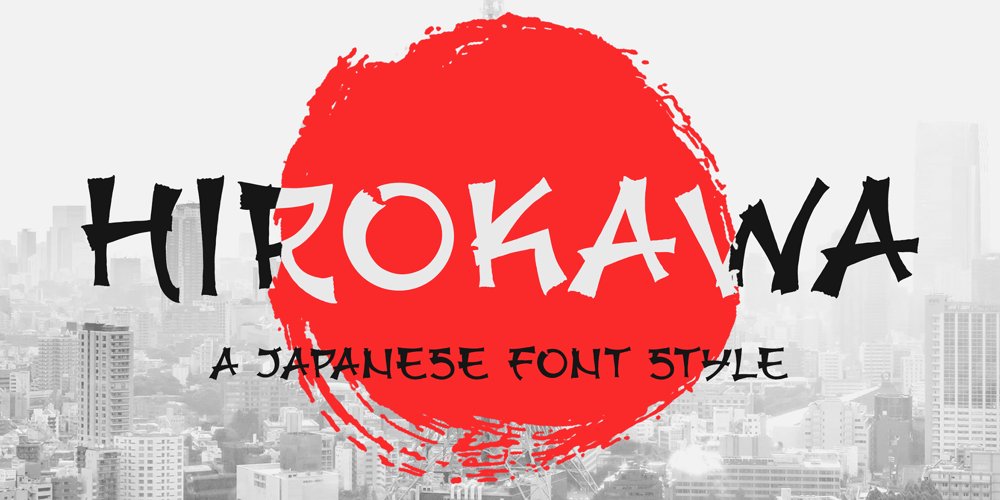
Hirokawa
Hirokawa font
Hirokawa Font Family was designed by Heri Imanudin and published by Krafted. Hirokawa contains 1 styles and family package options. Introducing Hirokawa – A Japanese FontKonnichiwa! Hirokawa is a handcrafted, elegant font, containing the beautiful Japanese culture within. Use this font on your work, websites, social media, presentations, printed materials and many more!Inspire your audience, clients, or guests with this stylish Japanese font.What you’ll get: Multilingual & Ligature Support Full sets of Punctuation and Numerals Compatible with: Adobe Suite Microsoft Office KeyNote Pages Software Requirements: The fonts that you’ll receive in the pack are widely supported by most software. In order to get the full functionality of the selection of standard ligatures (custom created letters) in the script font, any software that can read OpenType fonts will work. We hope you enjoy this font and that it makes your branding sparkle! Feel free to reach out to us if you’d like more information or if you have any concerns.